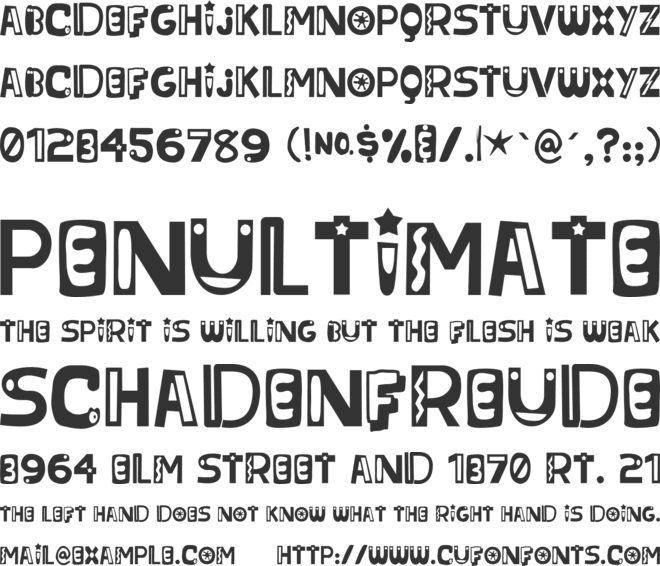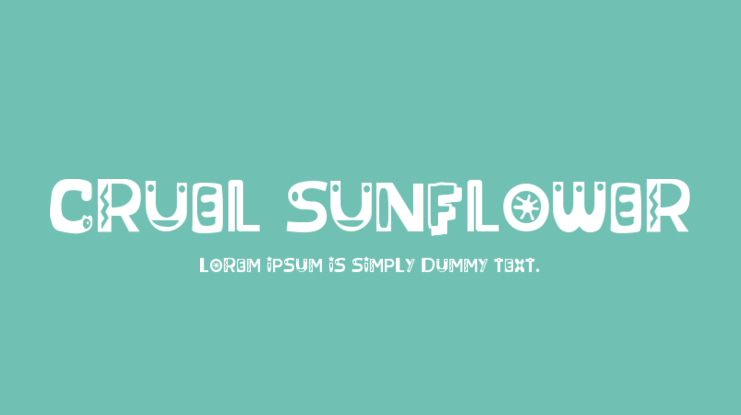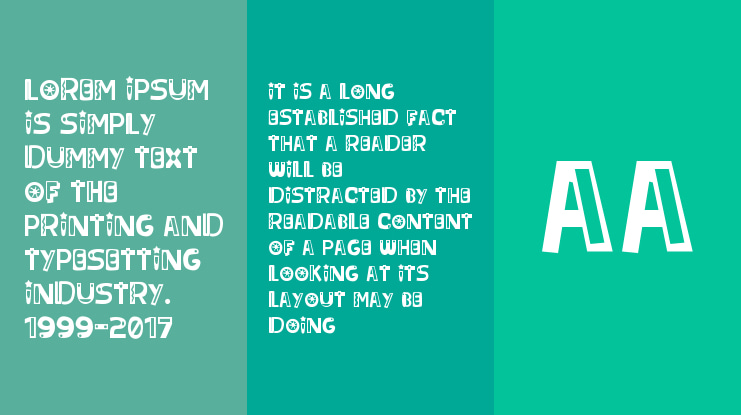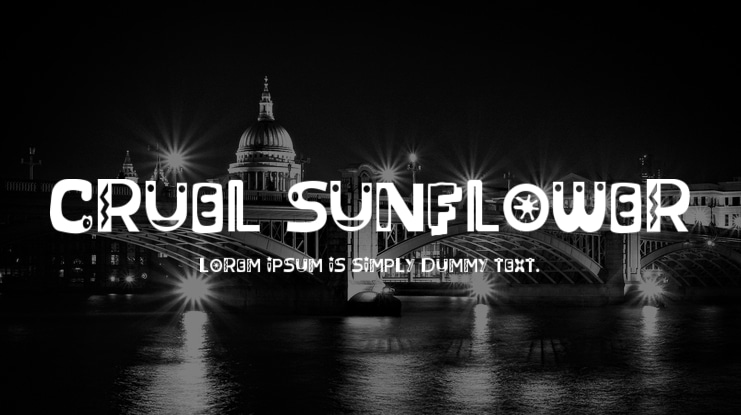
Cruel Sunflower Font
Cruel Sunflower is a new Touhou-themed ransom note typeface created by me.
I reminded that the font's creation date was in Children's Day.